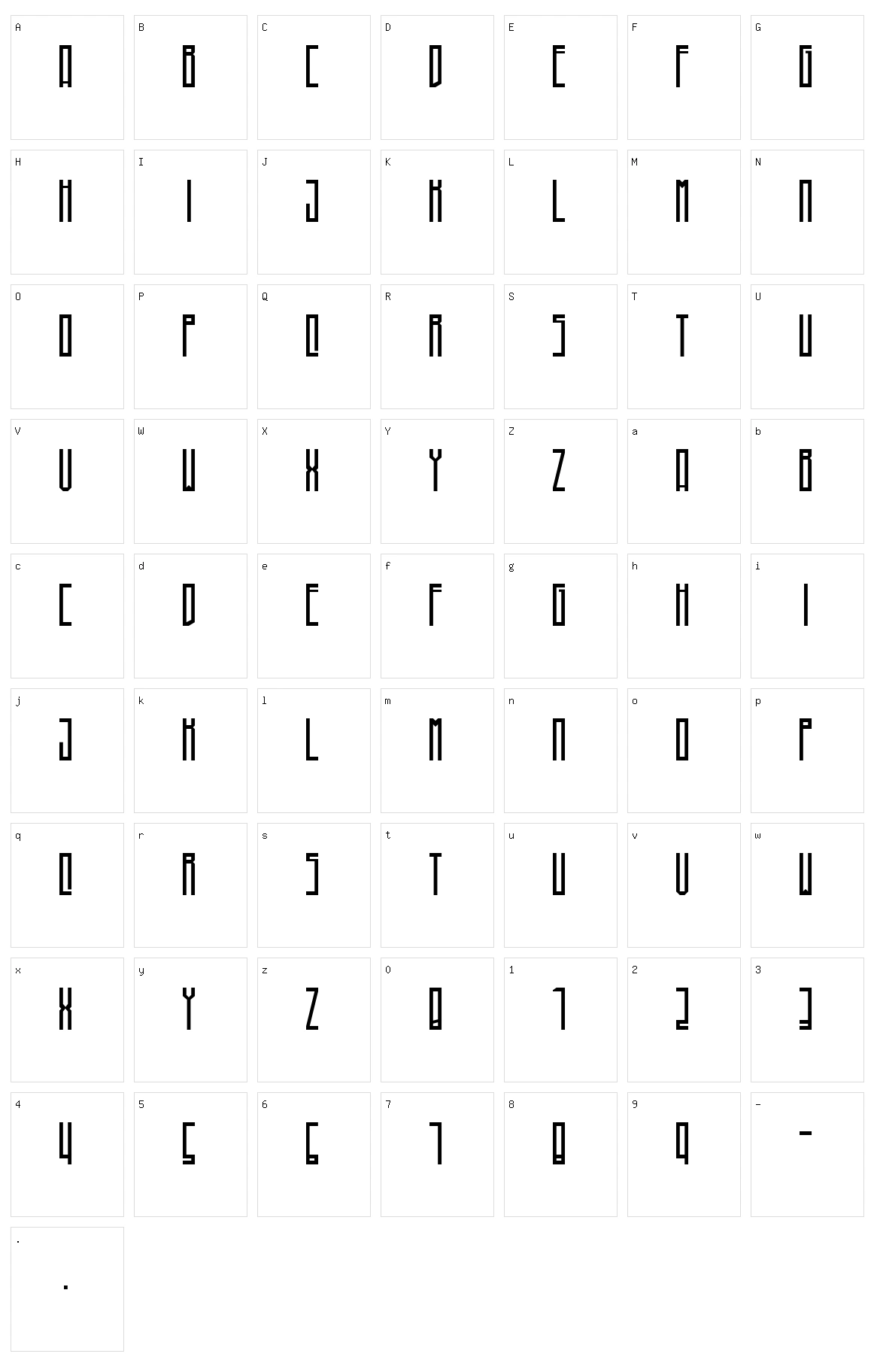
The free font Higher is carefully designed by Marisa Passos, showcasing a thoughtful balance of creativity and usability and falls under the Square font style. When you download the ZIP file, it contains only 7.95 KB of font files, making it lightweight and quick to download. Please review the license details below to understand permitted usage and distribution rights. If license information is not available, we recommend using this font for personal projects only or contacting the author directly for commercial usage permissions.
Higher | Free font by Marisa Passos | Student Project | 2013 |